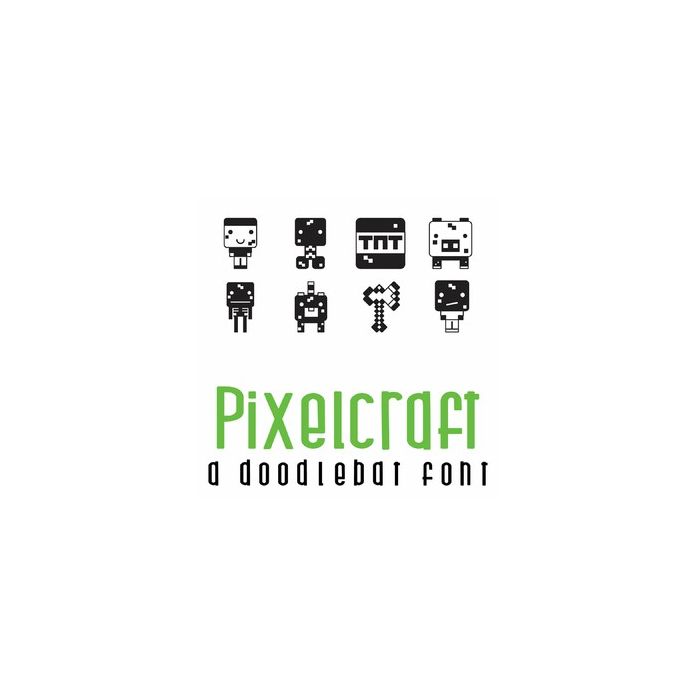
Pixelcraft Doodlebat Font
This doodlebat font features 26 pixel art inspired cast of characters is perfect for little gamers, parties, Valentines, scrapbooking and much more!